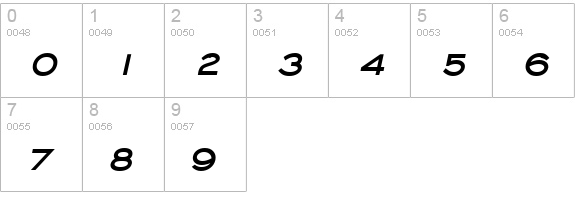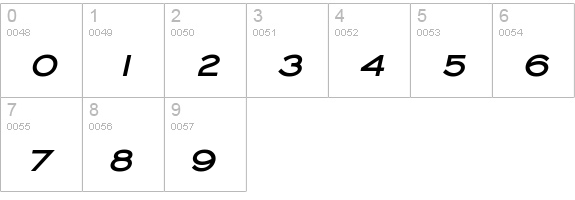
Chisel Bold Italic is a strong, high-contrast, italic variant in the Chisel typeface family \xE2\x80\x94 well suited to headlines, attention-grabbing titles, and strong calls-to-action.
Chisel Bold Italic is a striking and dynamic font that exudes power and confidence. Its sharp edges and slanted design give it a modern and edgy look, perfect for making a bold statement in any project. The combination of bold weight and italic styling adds a touch of sophistication and flair to your text. This versatile font is ideal for headlines, titles, logos, and any design that requires a strong and impactful typeface. Whether you're creating a poster, a website, or a branding project, Chisel Bold Italic will help your text stand out and grab attention. Best of all, Chisel Bold Italic is available for free download at FontsMarket.com. So go ahead and add this powerful and stylish font to your collection today!